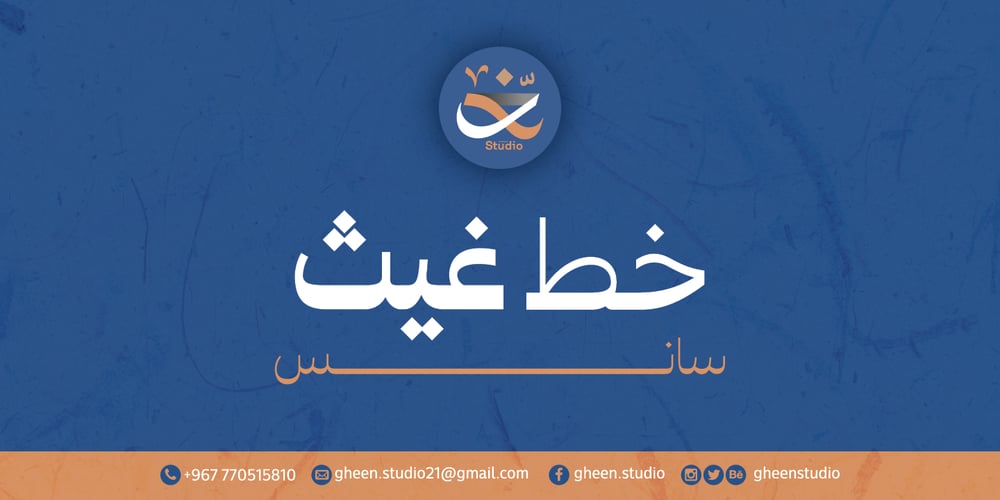
Ghaith Sans Font Family was designed by Ali Almeethali and published by GHEEN Studio. Ghaith Sans contains 9 styles and family package options. Ghaith Font is Arabic and Latin and the sub-languages from them are inspired by the Naskh script with a semi-rigid base characterized by many variable and compound characters, as well as high flexibility.Ghaith Font is considered a typographical font for the clarity of its typefaces in all types and sizes of printing. It is also used for broad headings, logos, and various fields.